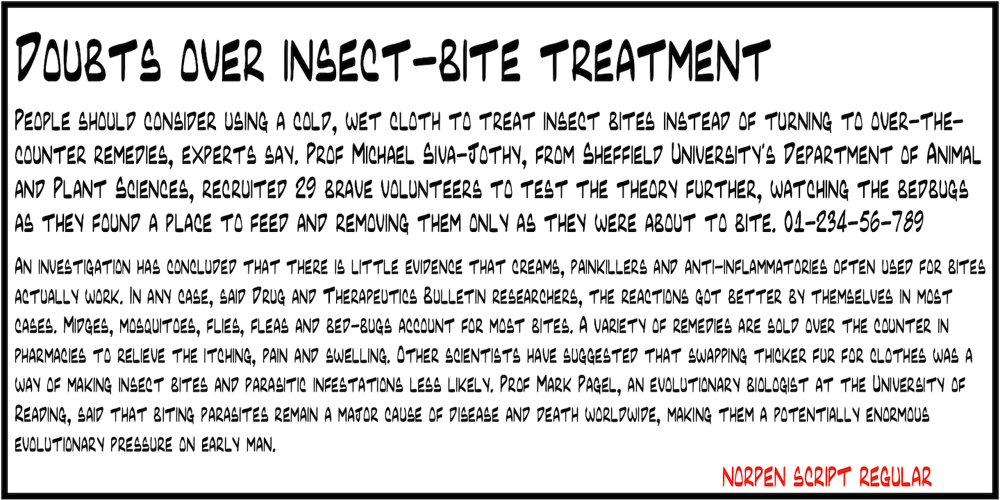
NorPen Script
NorPen Script font
NorPen Script Font Family was designed by Nor Eddine Bahha and published by NorFonts. NorPen Script contains 2 styles and family package options. NorPen Script is a handwritten Text Font made with an arabic calligraphy pen (my favorite pens) witch can be used with any word processing program for text and display use, print and web projects, apps and ePub, Comic Books, graphic identities, branding, editorial, advertising, scrapbooking, cards and invitations … or even just for fun! It comes with 2 weights: Regular and Italic.